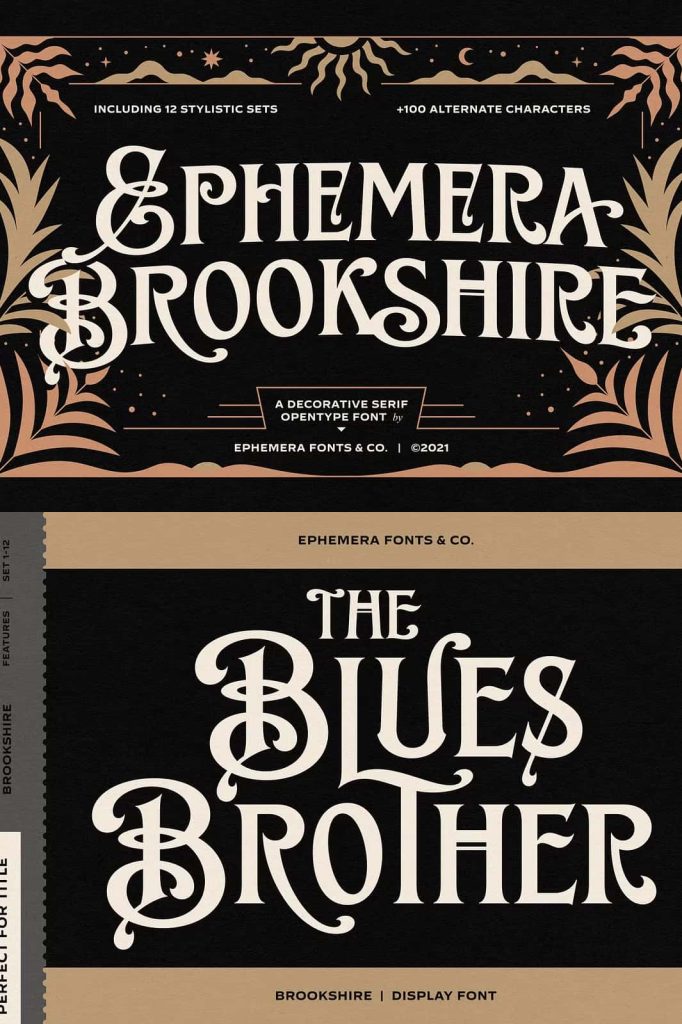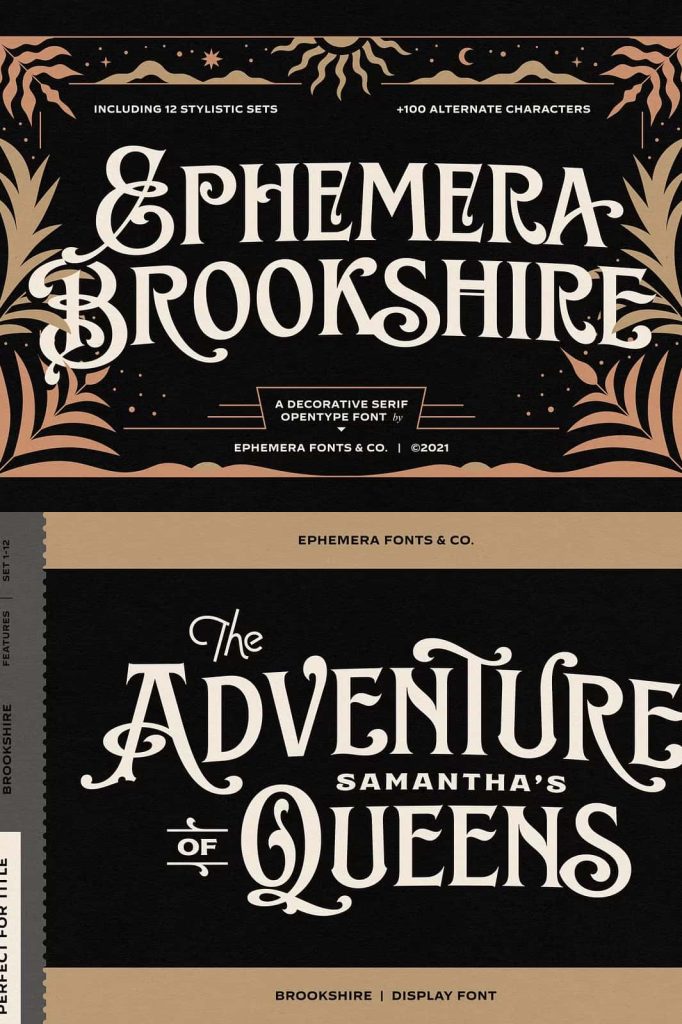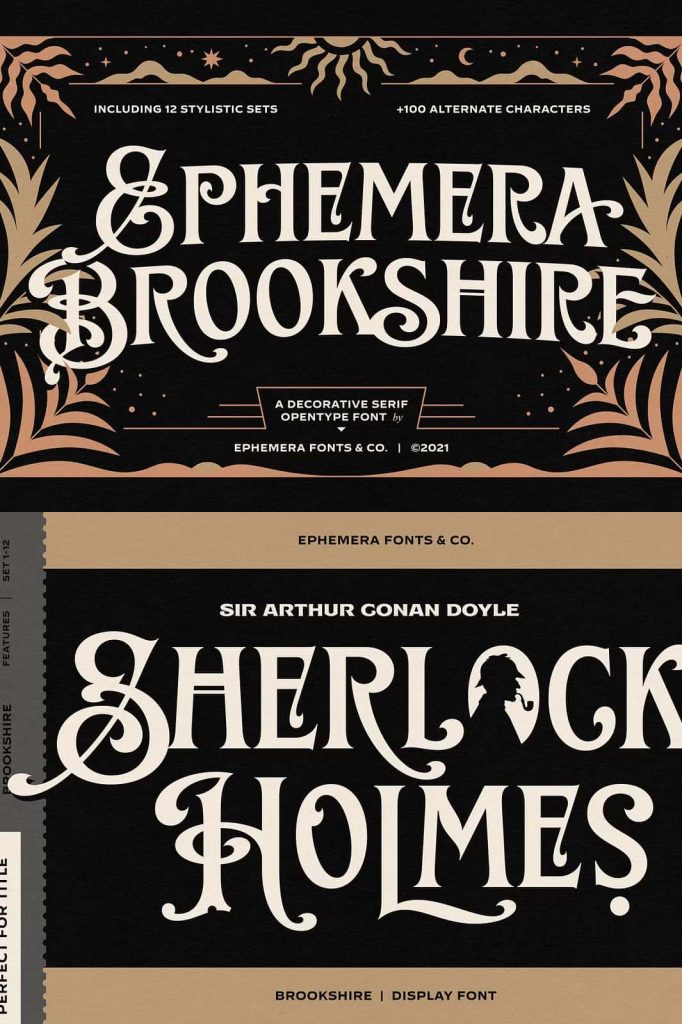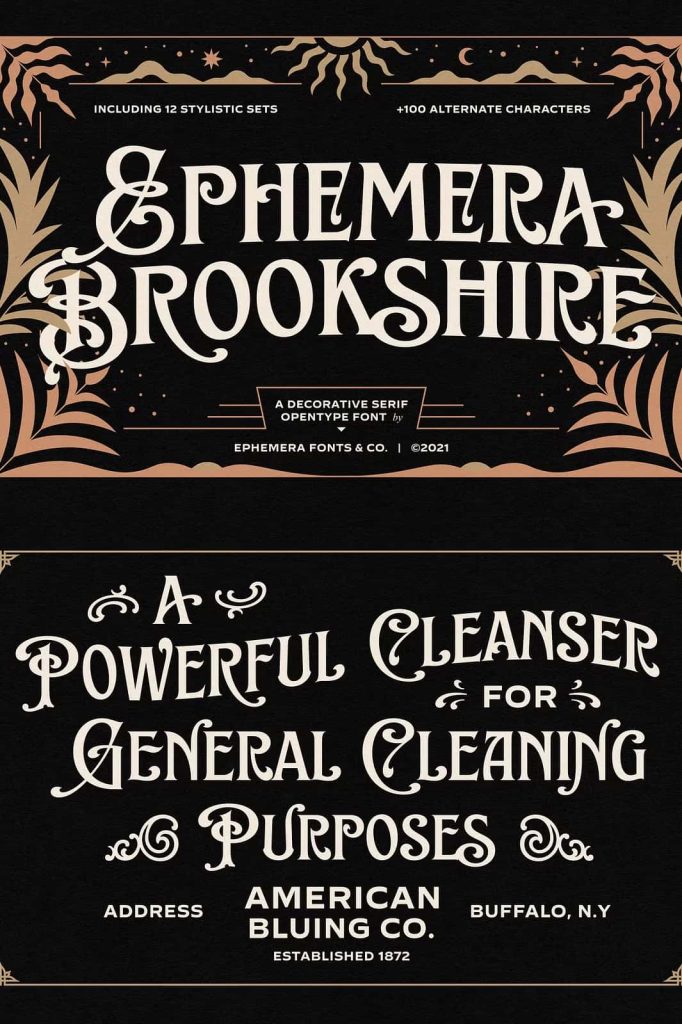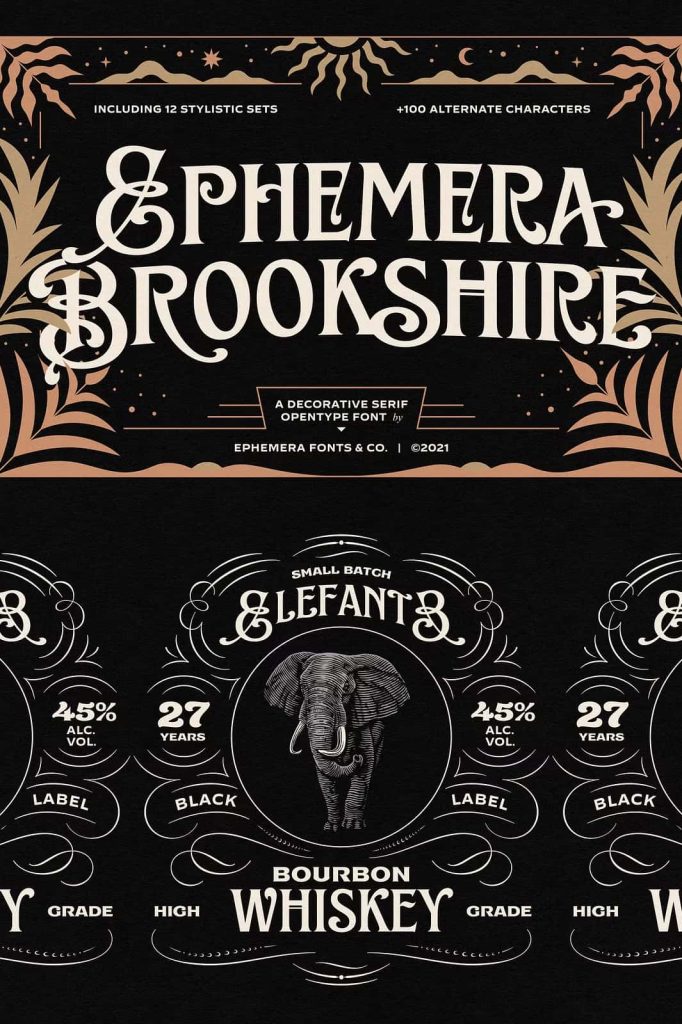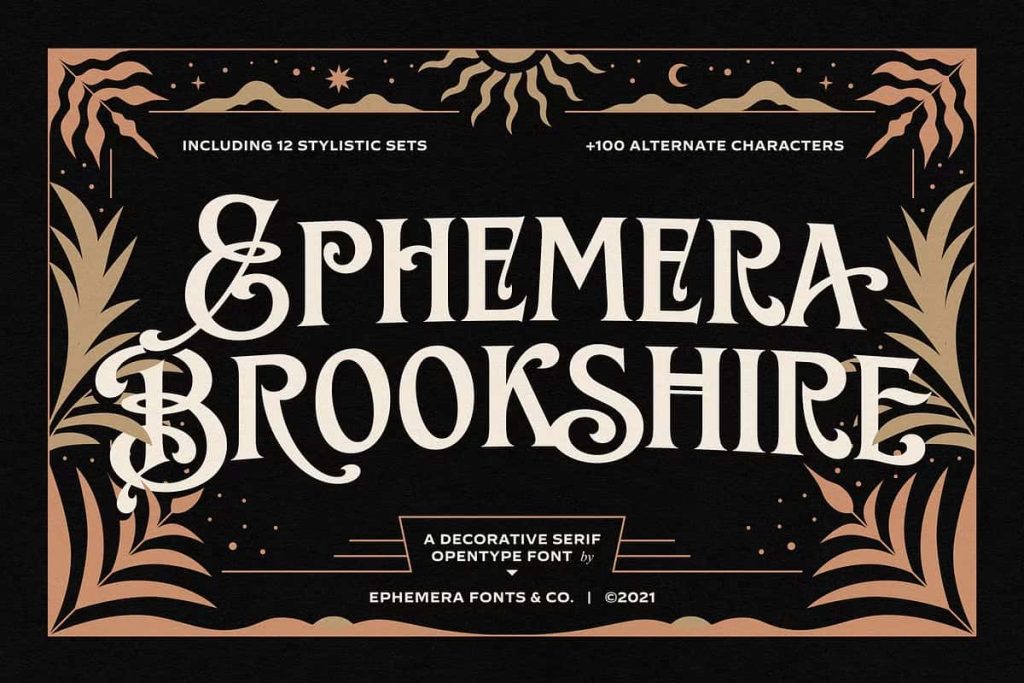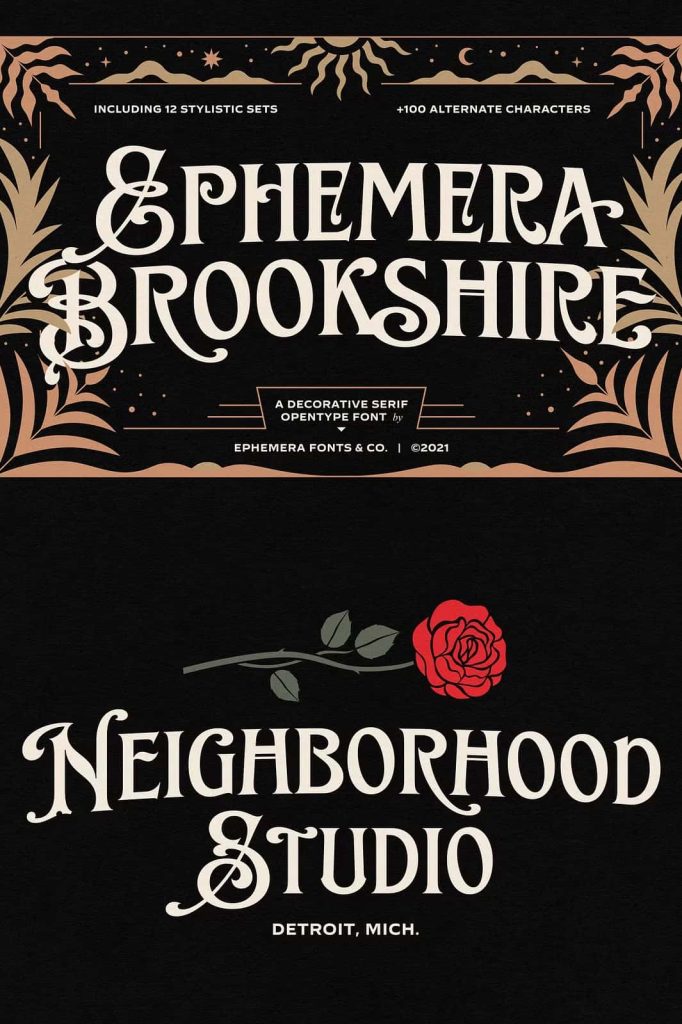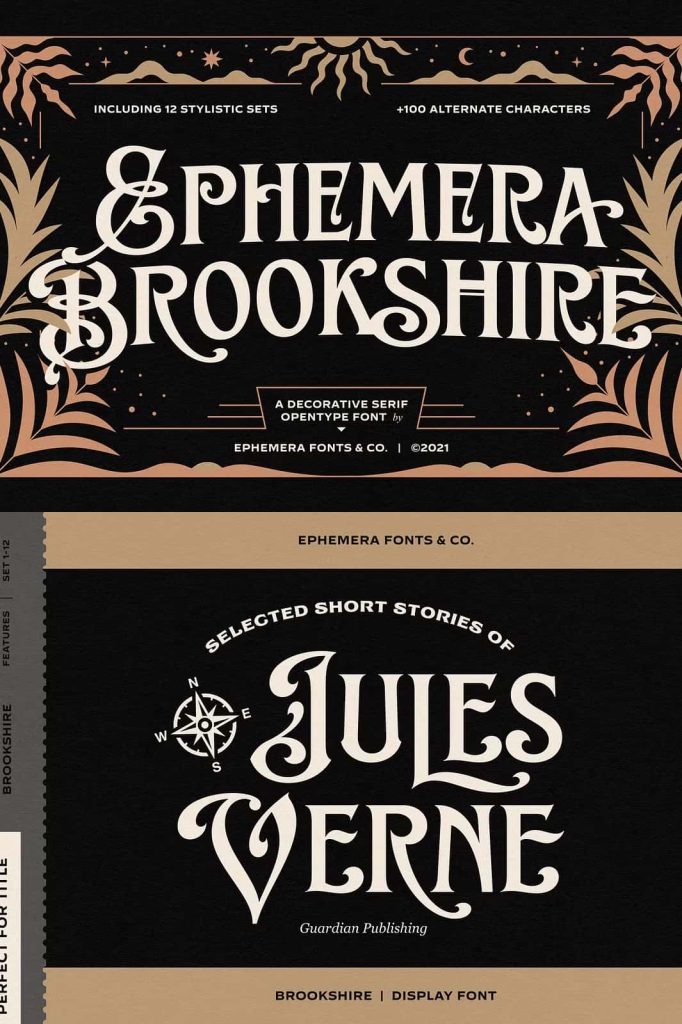
EFCO Brookshire was inspired by the beauty lettering of ephemera prints. Ideal for product names, packages, labels, old fashioned signs and everything with specific characteristics of past times.